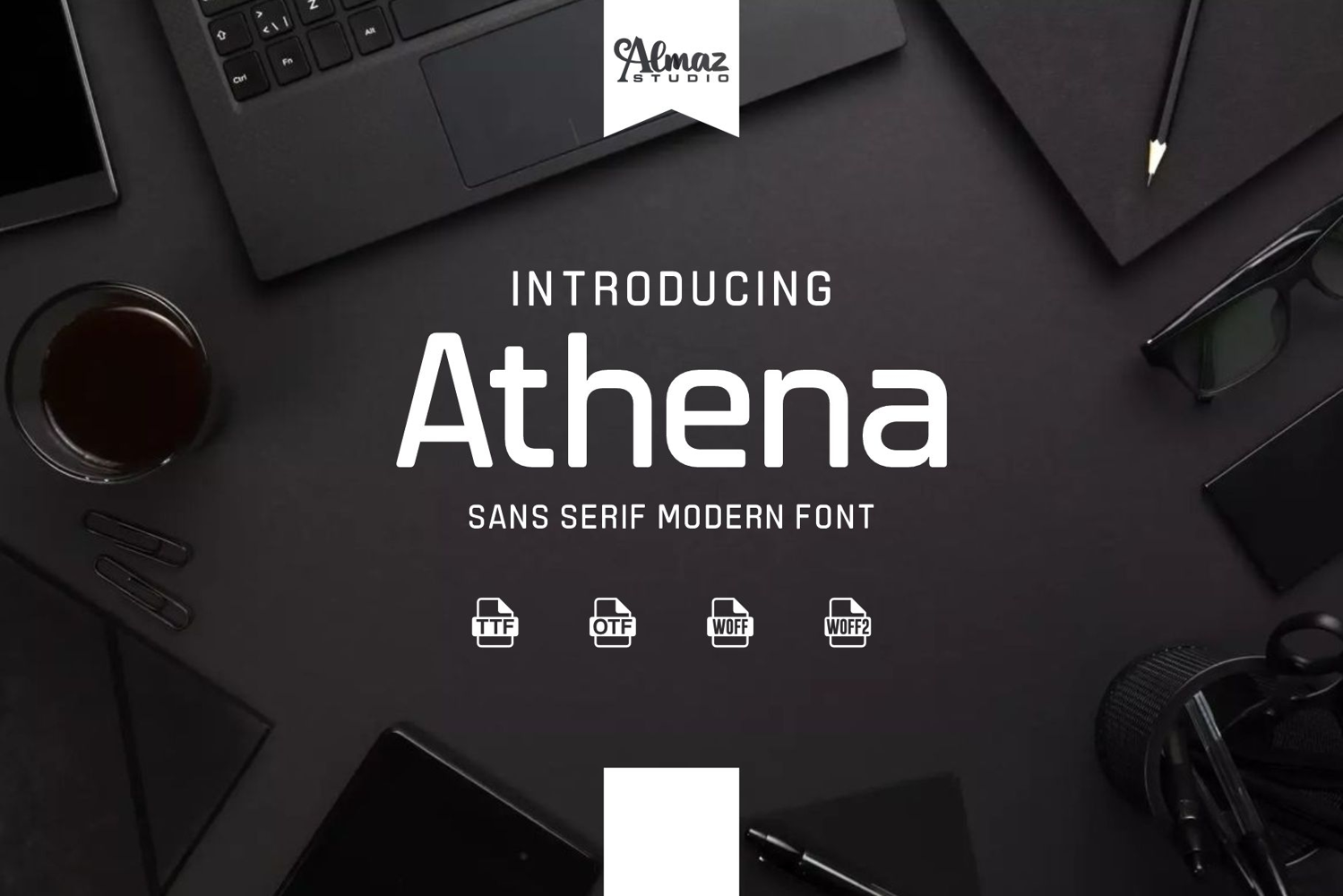
Athena
Athena is a modern sans serif font with a clean, elegant, and highly readable design. It features smooth curves, balanced proportions, and simple letterforms that convey a sense of professionalism and contemporary style. The font maintains a minimalist appearance while offering a friendly and refined character.
Athena is well suited for corporate branding, business presentations, websites, UI/UX design, editorial layouts, posters, and marketing materials. Its clarity and versatility make it an excellent choice for both digital and print applications where a modern and trustworthy look is required.